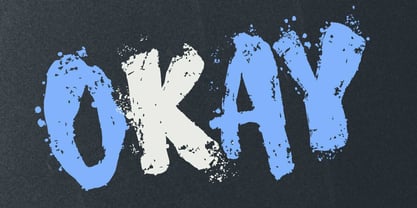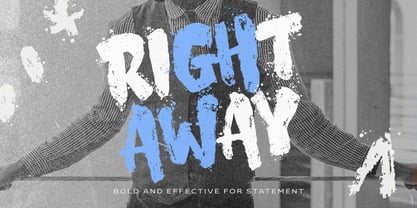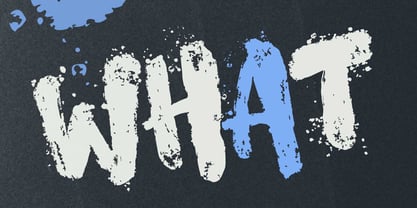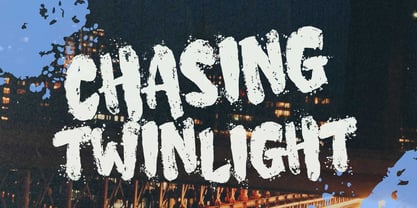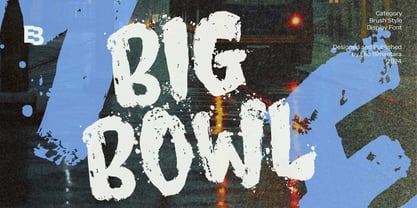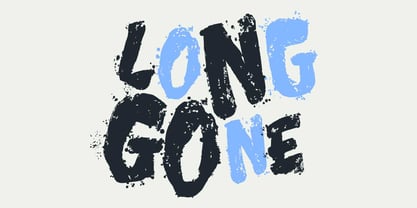
Big Bowl
by Eko Bimantara
The Big Bowl Font Family was designed by Eko Bimantara and published by Eko Bimantara. Big Bowl contains 1 styles. More about this family
Big Bowl is a bold brush display font characterized by strong, rough, and expressive brush strokes with scatter effects, making it perfect for creating impactful, artistic designs. Ideal for themes with a bold, rough, and expressive aesthetic, it is especially suited for branding, t-shirts, titles, and packaging. Whether for large-scale displays, headers, websites, or brand identity, Big Bowl delivers a striking visual presence and adds a creative, dynamic touch to various design and graphic projects.
Eko Bimantara is a type designer from Indonesia. Always has an intention to creating fonts that not only look great but also perform across a wide range of mediums and also across wide range of theme. The goal is to give designers the tools to make their projects that speaks a lot with various expression. Eko Bimantara’s fonts are featured in everything from corporate identities to street art posters, and have numerous ideas and concept ready to expand for fresh fonts for years further.